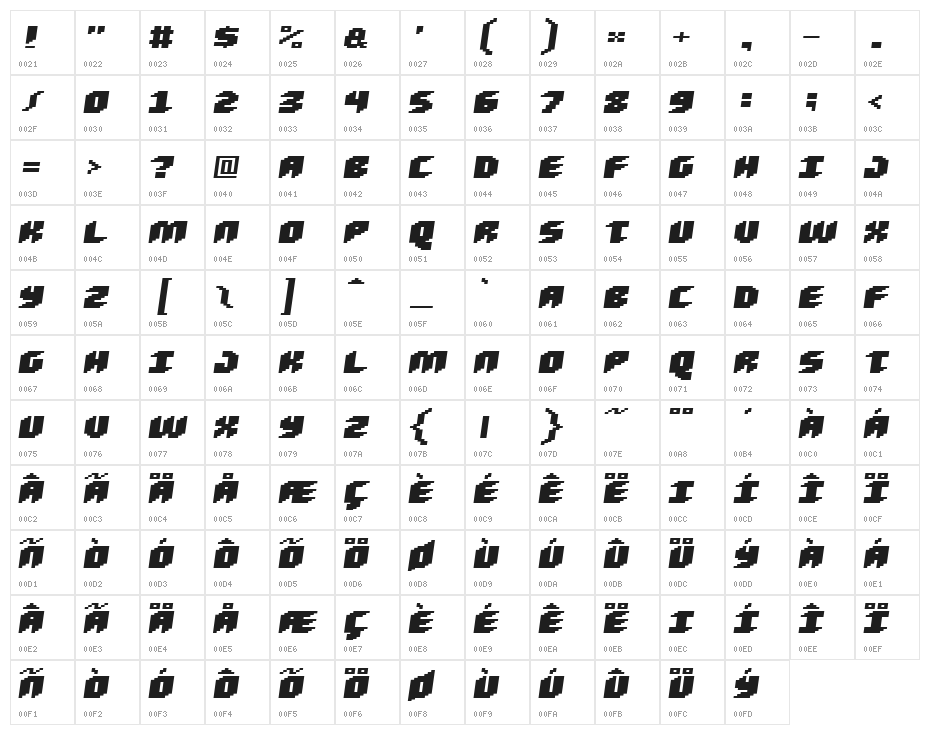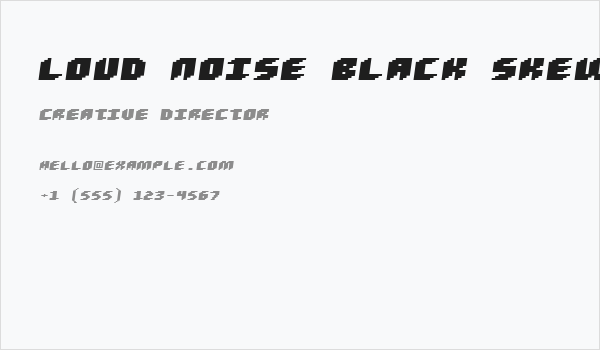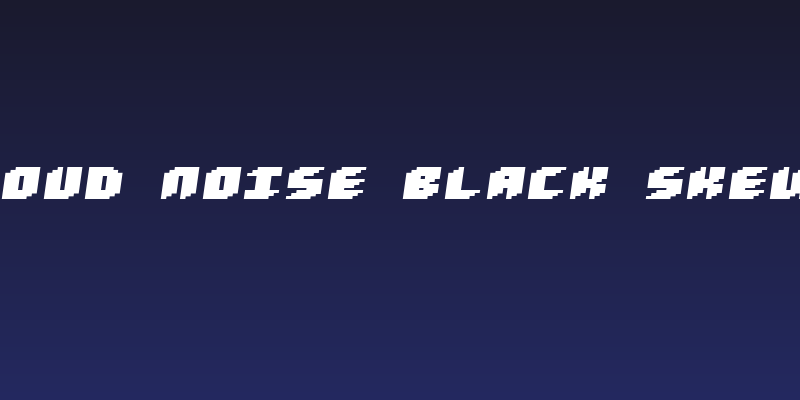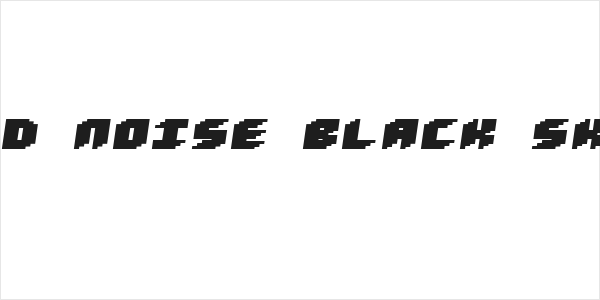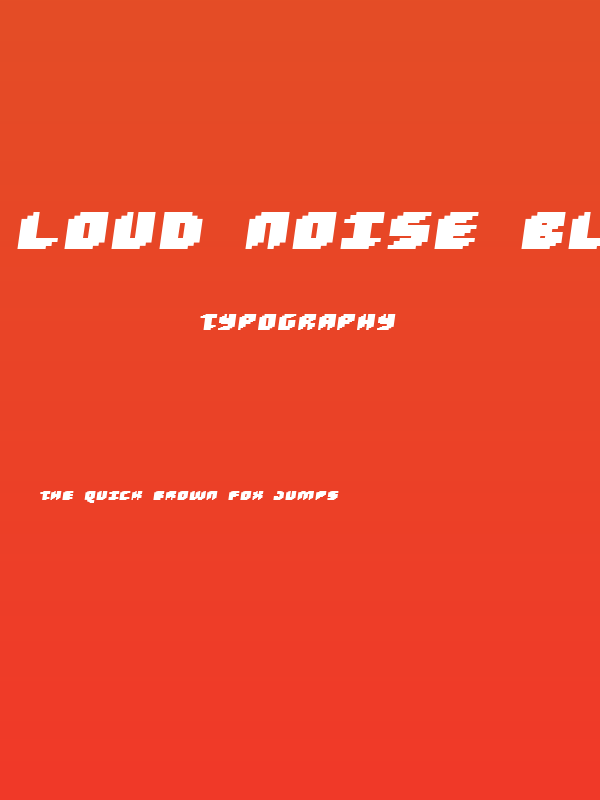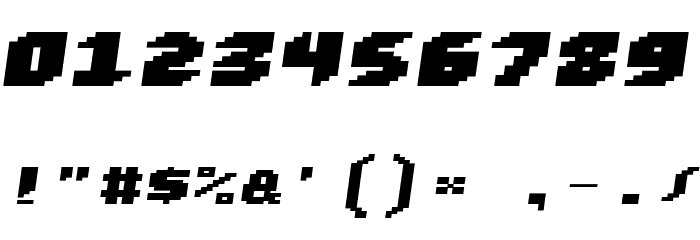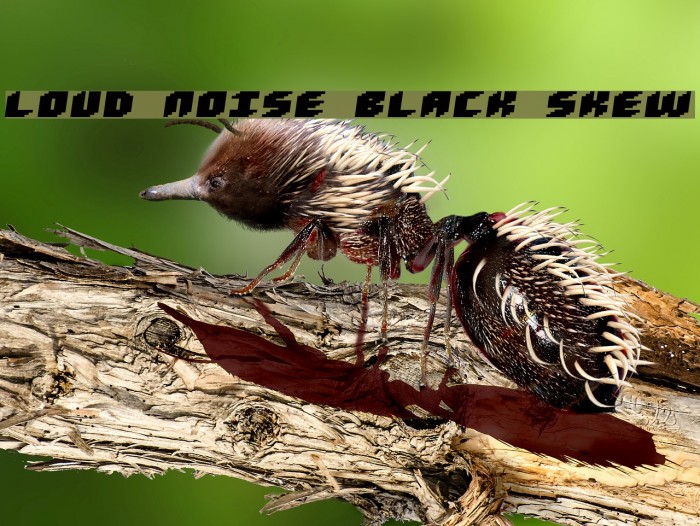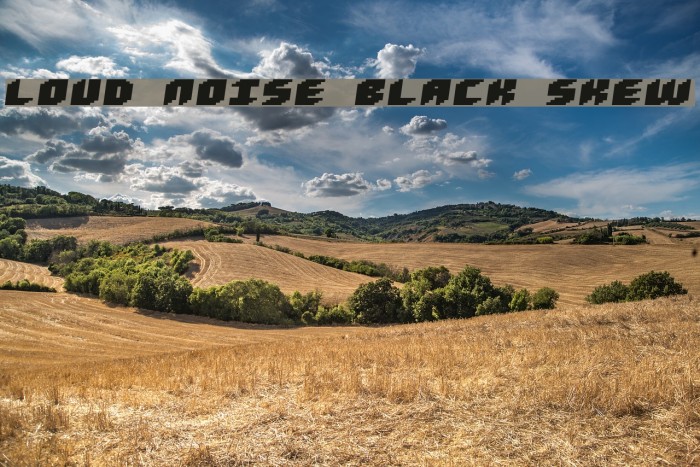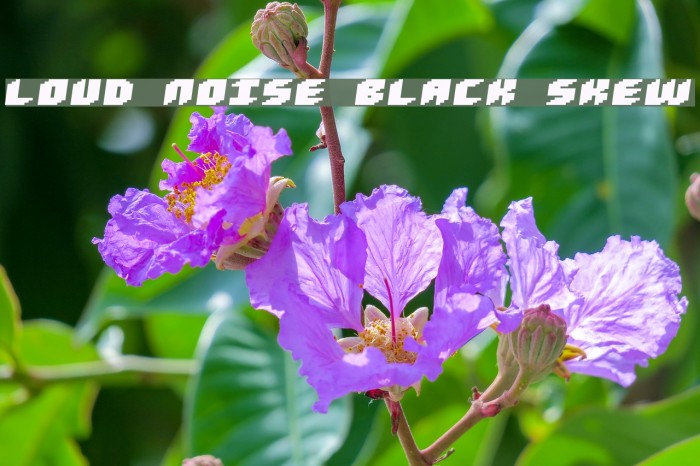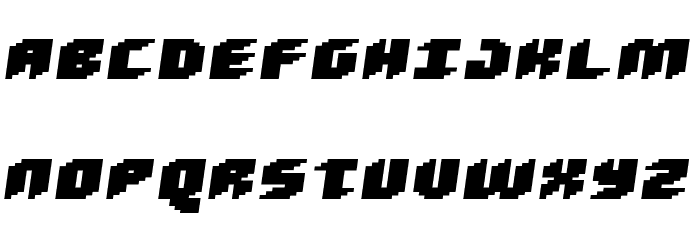
Loud noise Black Skew Font
Loud noise Black Skew Description
This font features a bold, angular design with a distinct skew, giving it a dynamic and energetic appearance. The characters are blocky and geometric, with sharp edges and a consistent thickness throughout. The uppercase and lowercase letters maintain a uniform style, enhancing the font's cohesive look. Numbers and special characters follow the same design principles, ensuring a seamless integration across different uses. The font's boldness and unique style make it stand out, ideal for projects that require a strong visual impact.
| Proposed Projects | Perfect for video game titles, sports branding, posters, and any project needing a bold, energetic typeface. |